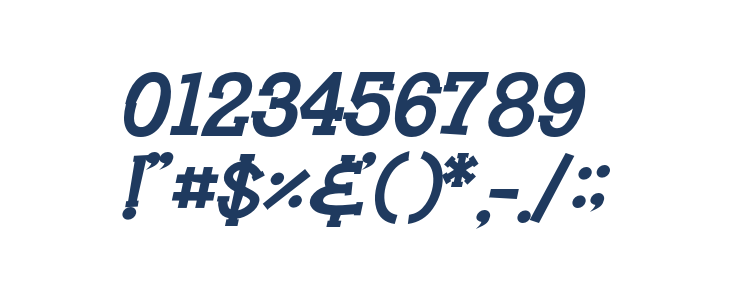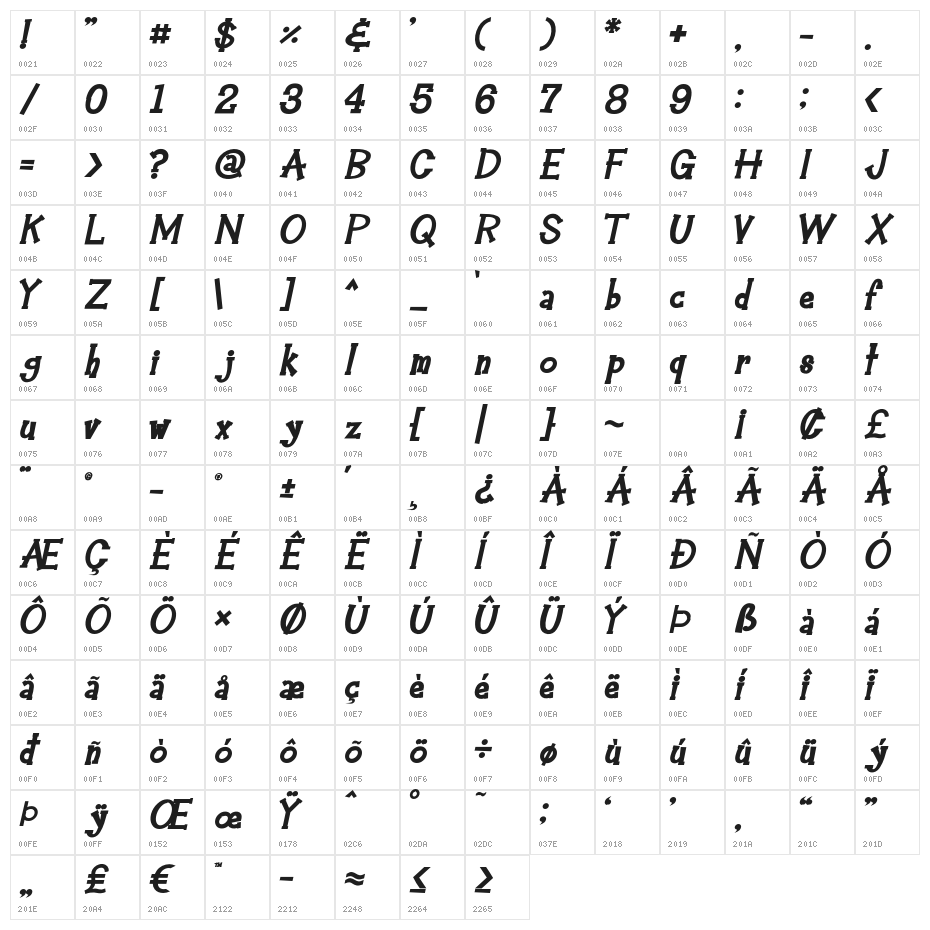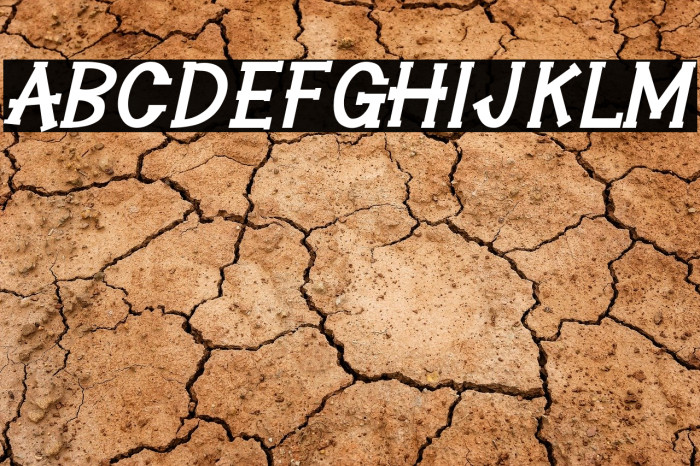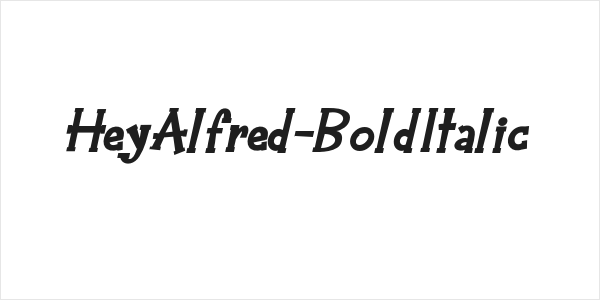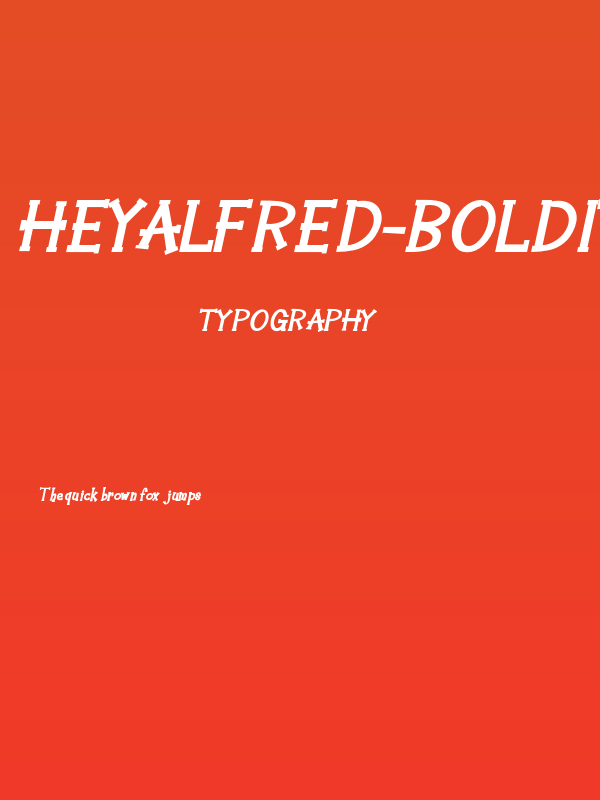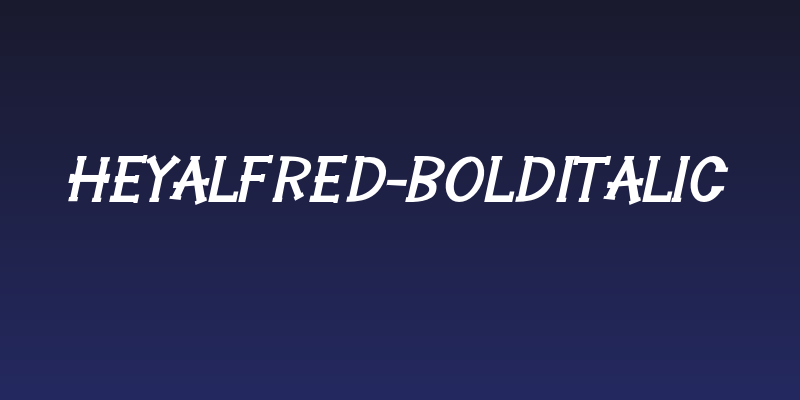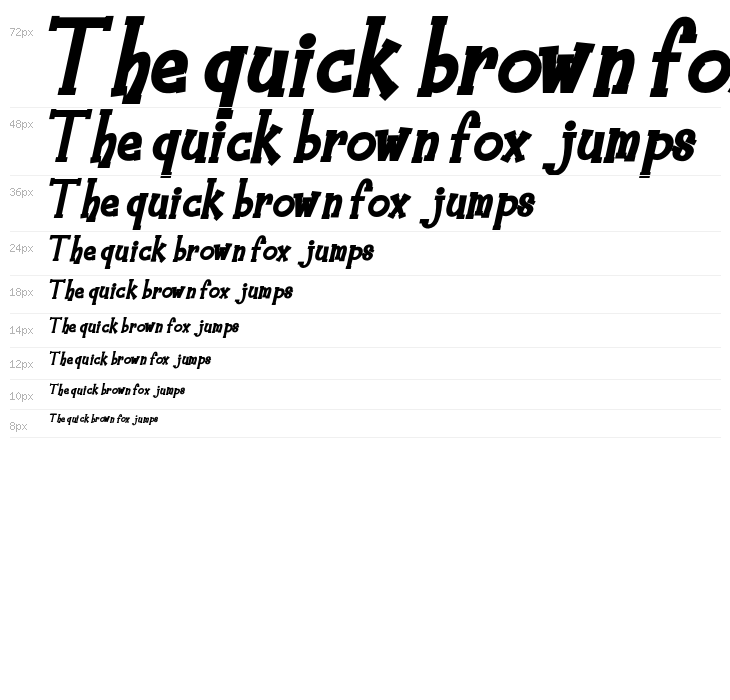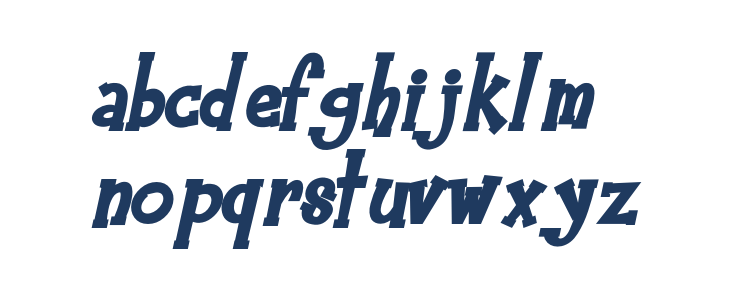
HeyAlfred-BoldItalic Font
HeyAlfred-BoldItalic Description
This font exhibits a bold and italicized style, characterized by its dynamic and slightly slanted letterforms. The strokes are thick and consistent, providing a strong visual impact. The uppercase and lowercase letters maintain a cohesive design, with smooth curves and sharp edges that enhance readability. The numerals are equally bold, ensuring they stand out in any context. Special characters are included, offering versatility for various uses. The overall appearance is modern and assertive, making it suitable for attention-grabbing headlines and branding.